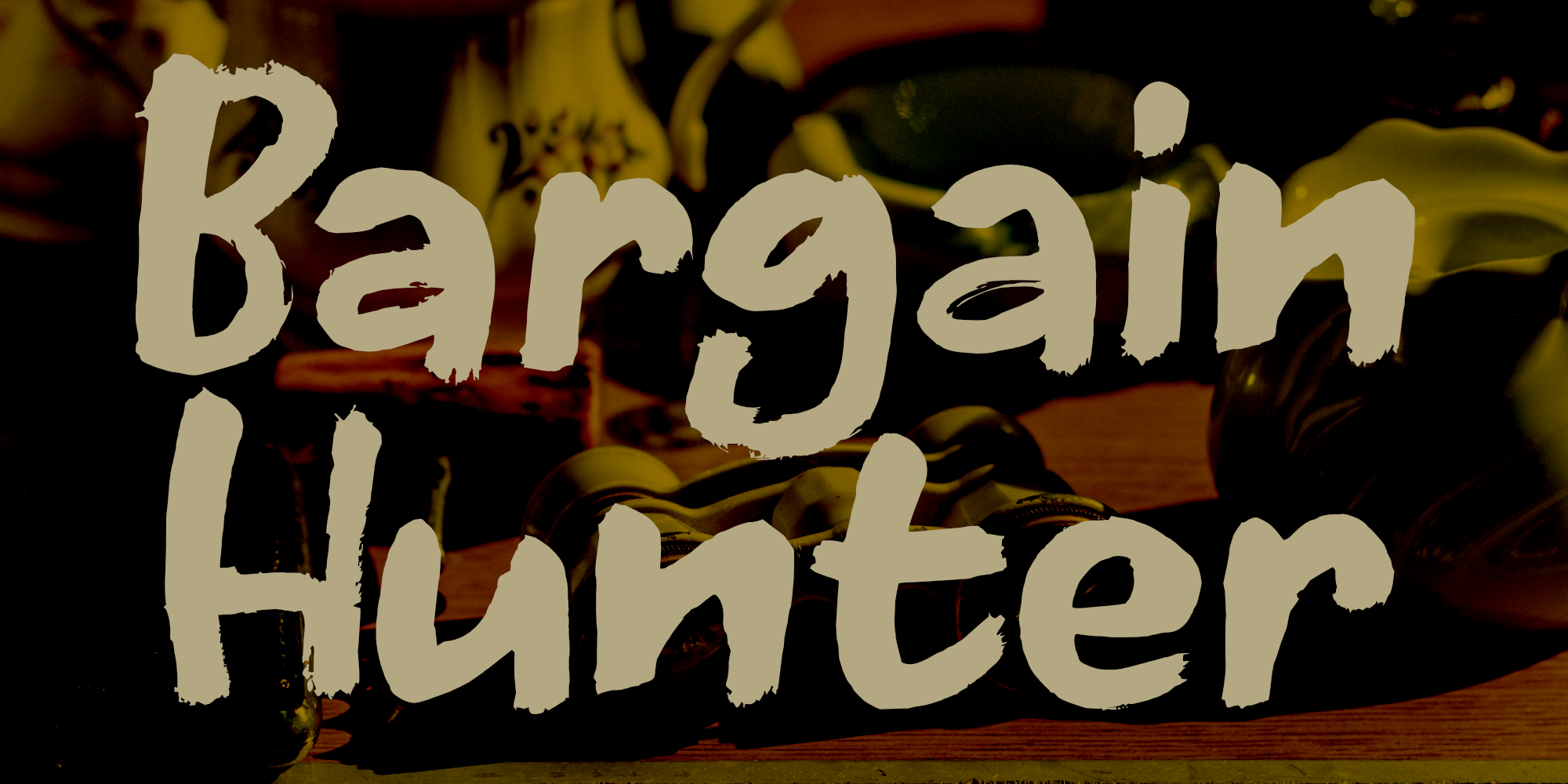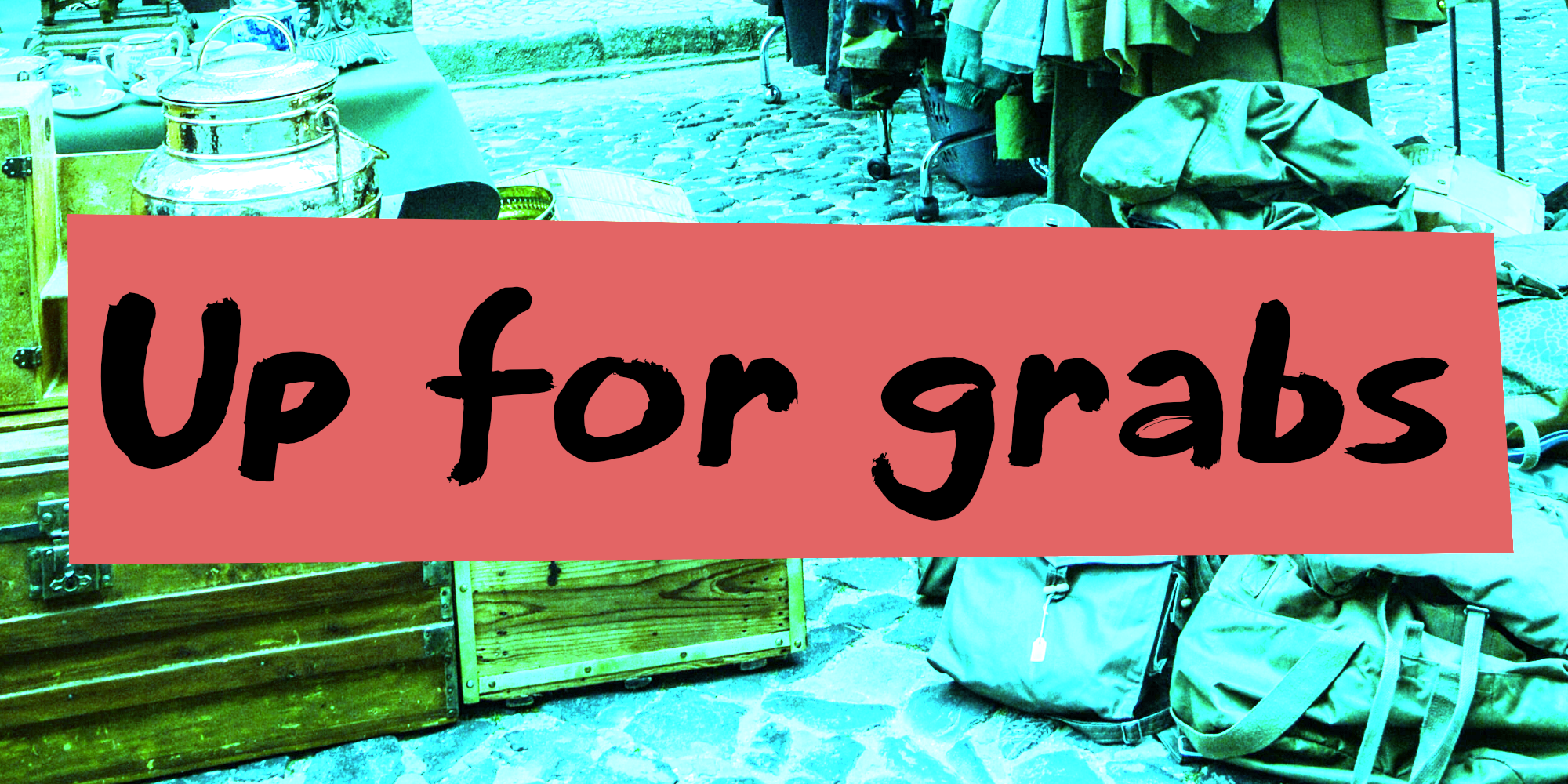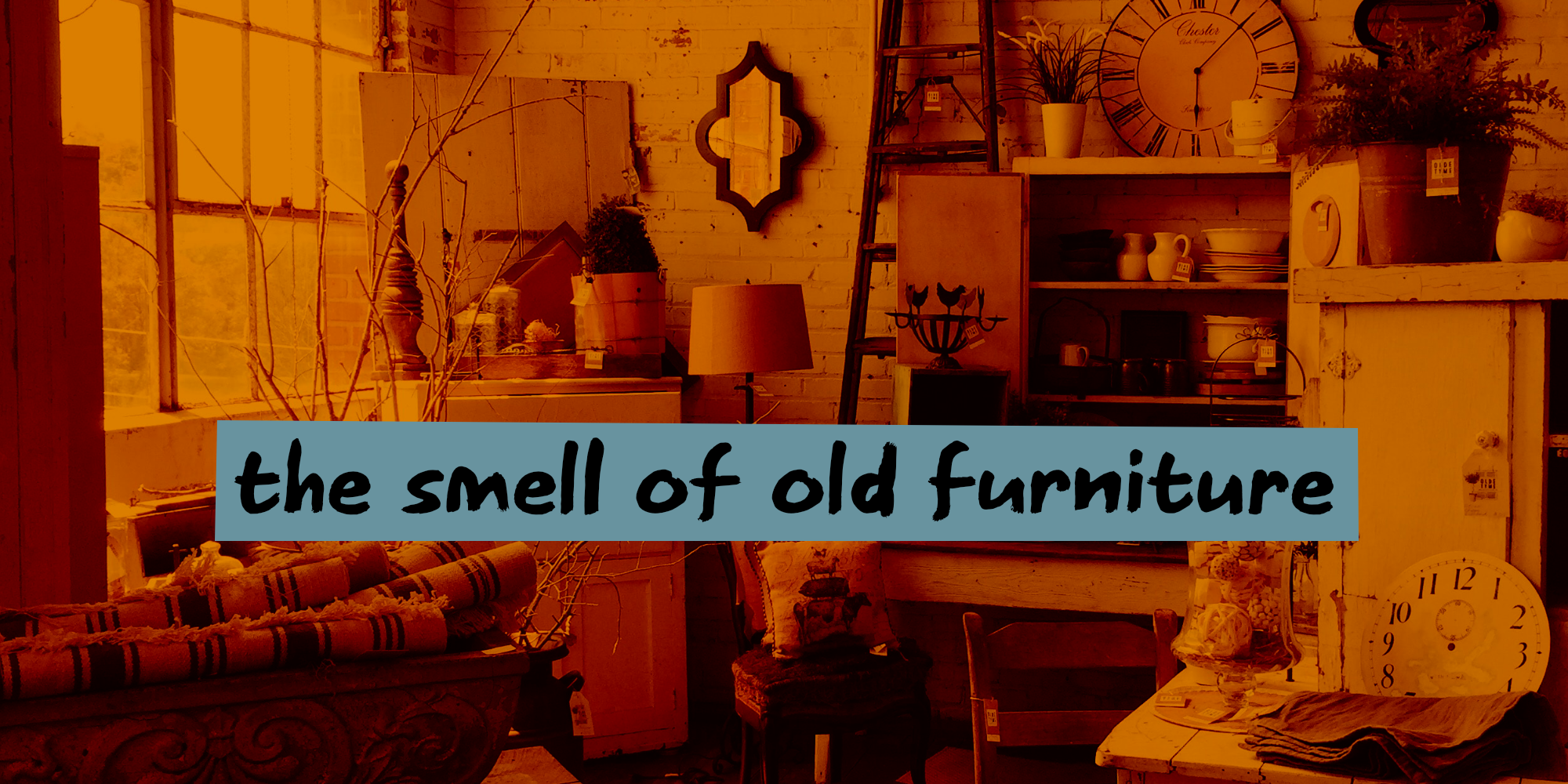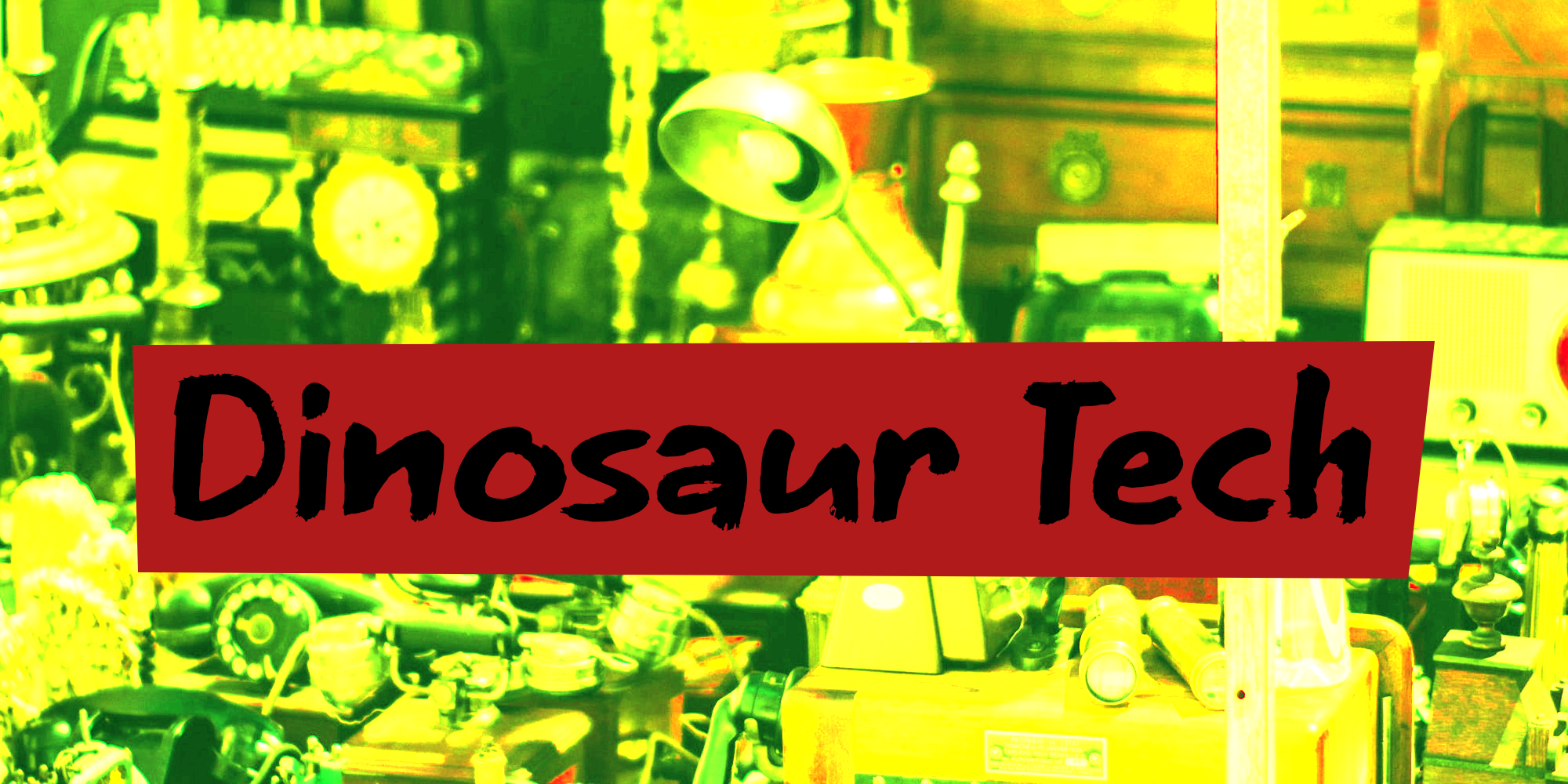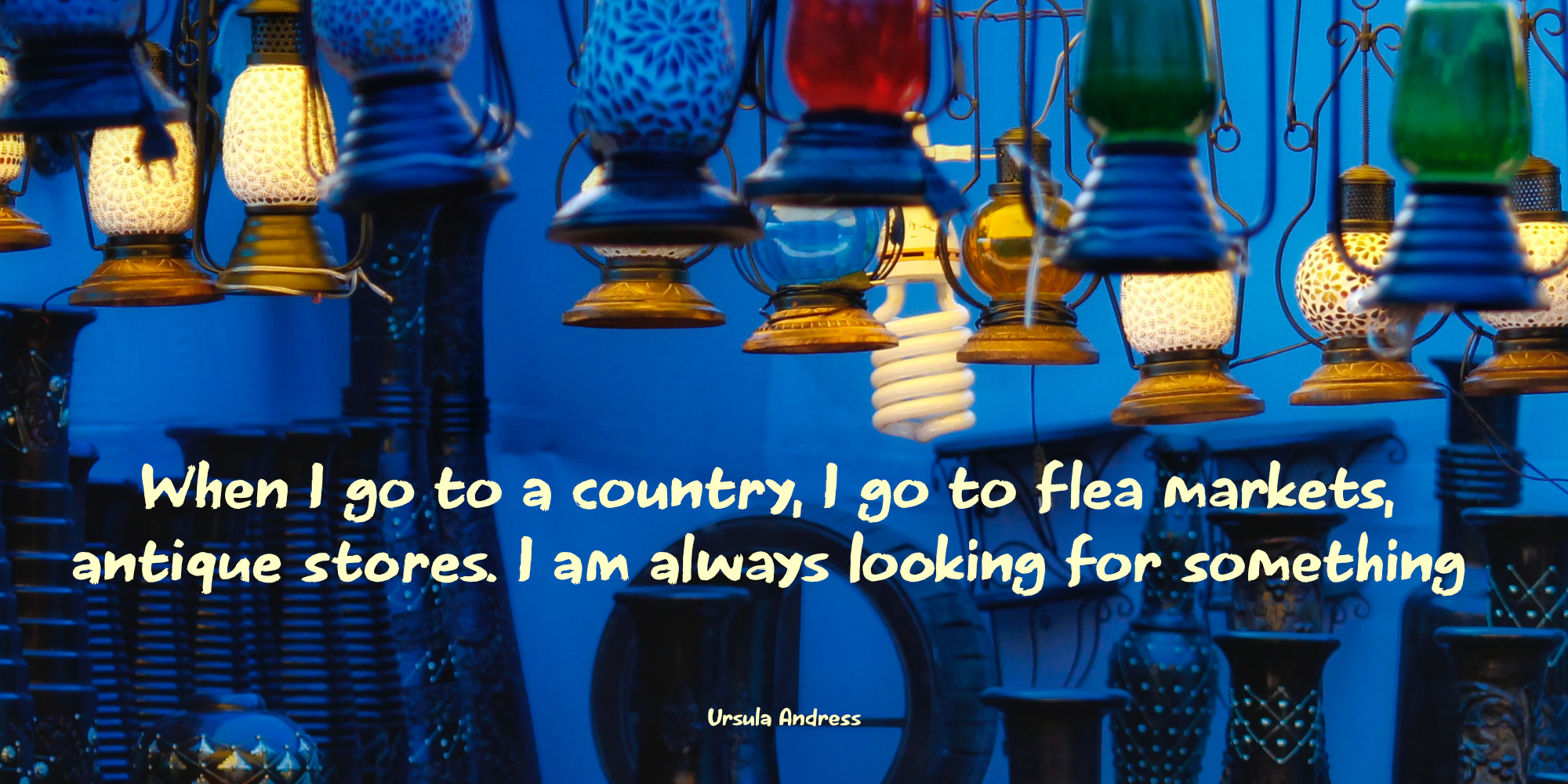
Bargain Hunter (2 fonts)
Bargain Hunter is a font I made with a cheap pencil (a bargain!) and my trusted Chinese Ink (environment friendly). It comes with a set of alternates and all the accents you need. And at this price, it is a genuine bargain!